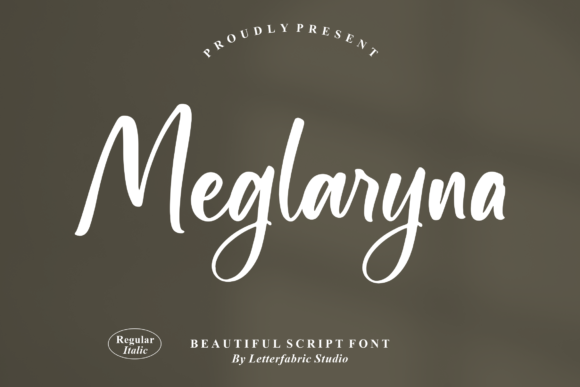
Embark on a Typographic Journey with Meglaryna: A Timeless Script Font to Elevate Your Creative Endeavors
In the realm of typography, there exists a font that captures the essence of beauty, elegance, and timeless charm. Allow us to introduce you to Meglaryna, a script font crafted with meticulous attention to detail and an artistic flair that will transform your creative projects into masterpieces. As you immerse yourself in the world of Meglaryna, you'll discover a font that seamlessly blends the allure of handwritten calligraphy with the sophistication of digital design.
With its gracefully flowing lines, delicate swashes, and captivating ligatures, Meglaryna possesses an inherent allure that draws the eye and captivates the heart. Its versatile nature allows it to effortlessly adapt to a myriad of creative endeavors, making it an indispensable tool for designers, artists, and creatives seeking to leave a lasting impression.
Picture this: Your logo adorned with the elegant strokes of Meglaryna, exuding a sense of sophistication and professionalism that sets your brand apart from the rest. Envision the stunning wedding invitations adorned with Meglaryna's enchanting characters, conveying a message of love and romance that resonates with your guests.
Let Meglaryna grace your homeware designs, adding a touch of charm and personality to your living space. Imagine your products adorned with Meglaryna's elegant script, evoking a sense of exclusivity and craftsmanship that elevates them beyond mere objects.
Meglaryna is not just a font; it's an extension of your creativity, a tool that empowers you to express yourself in a visually stunning and emotionally impactful manner. Whether you're a seasoned designer or just starting your creative journey, Meglaryna will be your steadfast companion, guiding you towards excellence.